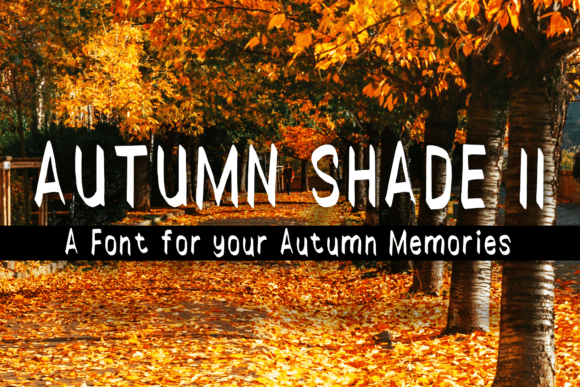
Fall in Love with Autumn Shade II: The Fun Handwritten Font You Need
I’ll never forget the design project that led me to discover Autumn Shade II. I was working on a whimsical kids’ party invitation, and my usual go-to fonts just weren’t cutting it. I needed something fun, playful, and full of personality. That’s when I stumbled upon this delightful handwritten font, and it instantly elevated my design to the next level. If you’re a designer, crafter, or creative hobbyist looking for a versatile font to add a casual touch to your projects, you’re in the right place!
An Honest Review of Autumn Shade II
What I Love About Autumn Shade II ✨
- Its incredibly versatile style, perfect for a wide range of designs, from cartoon-related projects to kids’ materials and greeting cards ✅
- The handwriting feel is fun and engaging, making it ideal for designs that need a personal touch 📝
- It’s surprisingly legible, even at smaller font sizes, making it a great choice for body text or captions 📚
- The font comes with a range of OpenType features, including glyphs and stylistic alternates, giving you plenty of creative options to experiment with 🎨
While Autumn Shade II is an excellent font, it’s not without its quirks. For example:
- Some characters, like the lowercase ‘g’ and ‘y’, have a slightly condensed design, which might make them appear a tad cramped in certain contexts 🤔
- The font doesn’t come with an extensive range of weights or styles, so you might need to get creative with layering or texture overlays to achieve the desired effect ⚠️
The Story Behind Autumn Shade II
While the origins of Autumn Shade II might be shrouded in mystery, it’s clear that the designer was inspired by the warmth and coziness of handwritten fonts. With its unique blend of playful and elegant features, Autumn Shade II is the perfect addition to any design project that needs a personal touch.
Q: Is Autumn Shade II suitable for body text?
A: While Autumn Shade II is primarily designed for display text, it’s surprisingly legible, even at smaller font sizes. However, for longer blocks of text, you might want to consider a more traditional font for readability.
Q: Does Autumn Shade II come with OpenType features?
A: Yes, Autumn Shade II comes with a range of OpenType features, including glyphs and stylistic alternates. These features allow you to add variety and interest to your text, making it perfect for creative projects.